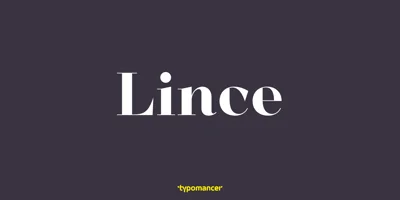
Lince Font
This agile typeface is perfect for wildlife conservation organizations, outdoor adventure companies, hunting equipment brands, nature documentaries, animal protection services, wilderness tour operators, eco-tourism agencies, wildlife photography, predator research institutions, survival training programs, outdoor gear retailers, and stealth-focused marketing campaigns. The font's sharp design makes it ideal for projects that celebrate wild instincts, natural agility, and the fierce independence of predators who move with silent precision through their natural habitat.
Lince Font is exciting because it embodies predatory precision and wild instinct through its sharp letterforms and lynx-inspired character structure. The font's angular edges and hunting proportions create an atmosphere of stealth, alertness, and natural intelligence, making it perfect for brands that want to convey sharpness, independence, and the keen awareness that comes from survival instincts. Its predatory personality ensures instant recognition while maintaining excellent readability across various wildlife applications.
The Lince Font family includes multiple hunting variations: Light Stalk, Regular Hunt, Medium Prowl, Bold Strike, and Black Predator weights, each available in standard and condensed versions. Special wildlife editions feature claw alternates, tracking symbols, and wilderness ornaments that enhance the font's wild appeal, providing designers with comprehensive tools for creating authentic nature-focused communications.
Unleash wild design instincts with Lince Font – a typeface that represents predatory precision and natural intelligence. Whether you're developing wildlife branding, outdoor adventure materials, or nature conservation campaigns, this font delivers the sharp presence and wild authenticity your projects need while ensuring exceptional performance and predatory impact across all wildlife and outdoor applications.